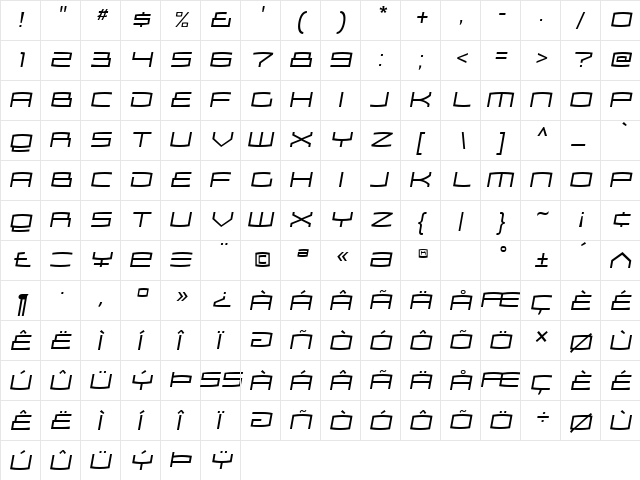
Zosma Light Italic
Design Context for Zosma Light Typeface
Zosma Light offers clean, dependable letterforms without strong stylistic allegiance, making it a practical choice for designers who need flexibility. The slanted form adds forward momentum and visual energy. The delicate stroke weight brings airiness and refinement to layouts.
Pro Tip: Try Zosma Light for annotation and caption copy alongside an upright companion — the contrast in angle creates a dynamic but ordered typographic system.